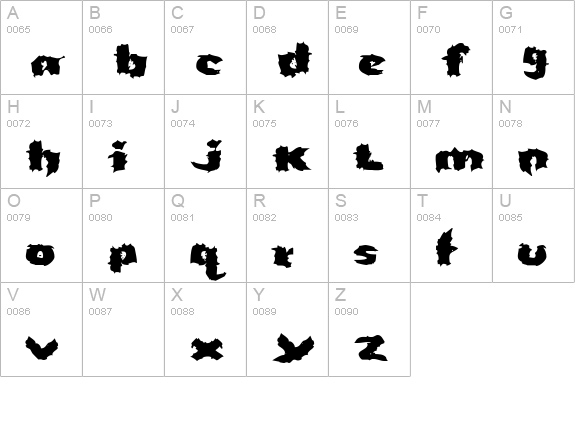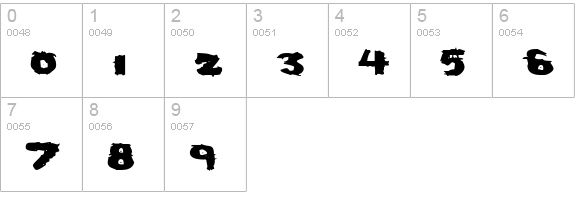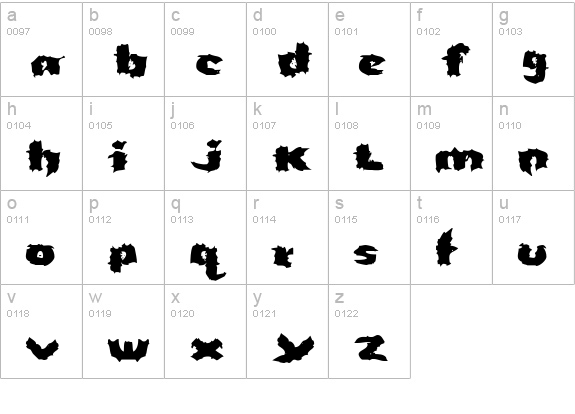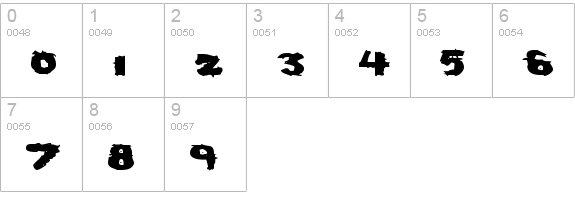
Severed Font Details
Introducing Severed font, a striking display typeface that is sure to captivate and command attention. With its sharp edges and bold lines, this font exudes a sense of power and strength, making it perfect for headlines, logos, and branding projects. What sets Severed font apart is not just its visually arresting design, but also the fact that it is available for free. That's right, this stunning font can be downloaded at no cost from FontsMarket.com. We believe in making high-quality fonts accessible to all, and Severed font is no exception. Whether you're a designer looking to add a touch of intensity to your work or a business owner in need of a standout logo, Severed font delivers. Its unique letterforms are versatile and adaptable, allowing you to create custom designs that truly reflect your vision. With Severed font, you have the freedom to explore your creativity and unleash your imagination. Its distinctive aesthetic will make your designs truly memorable and leave a lasting impression on your audience. So don't miss out on this incredible opportunity to elevate your projects with Severed font. Download it for free today at FontsMarket.com and witness the transformative power of typography at its finest.